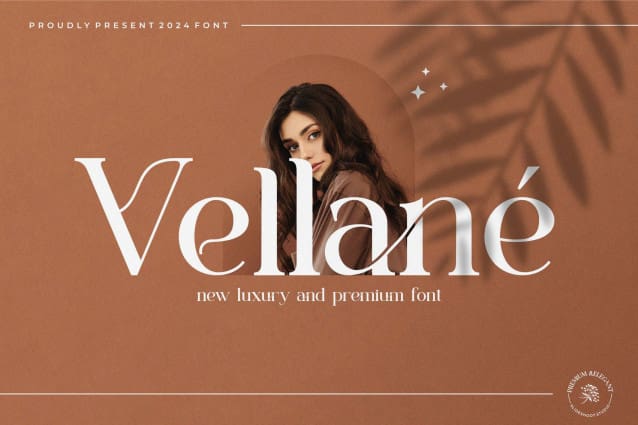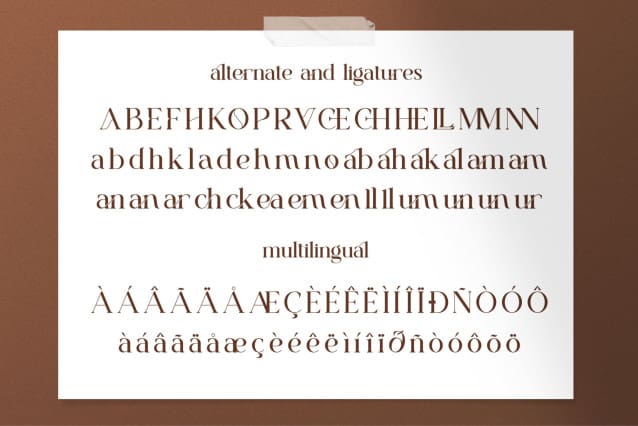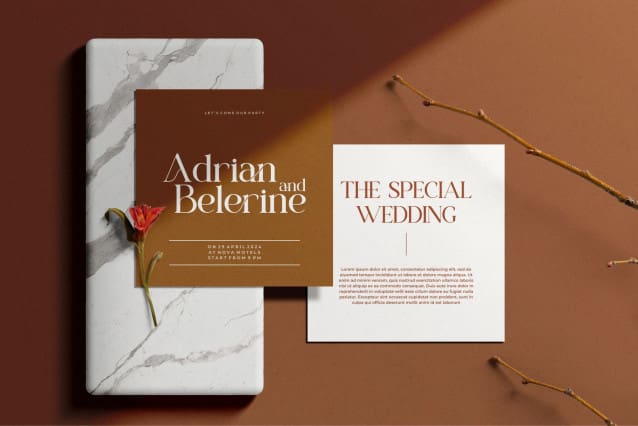
Vellane Font
Vellane Font is a balanced, smooth, elegant and stylish serif font. He has a beautiful character. It fits perfectly with invitation card designs, company logos, movie titles, movie names, business cards, book titles, brand names and various other designs. Vellane Serif is a subtle serif font that exudes sophistication and elegance. Its stylish alternations and ligatures make this font the perfect partner for any project.
Designer Name: SlideShoot